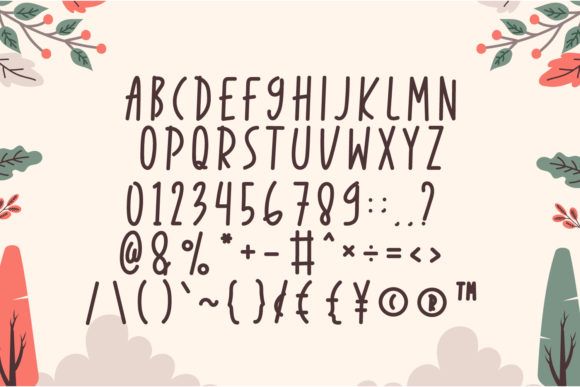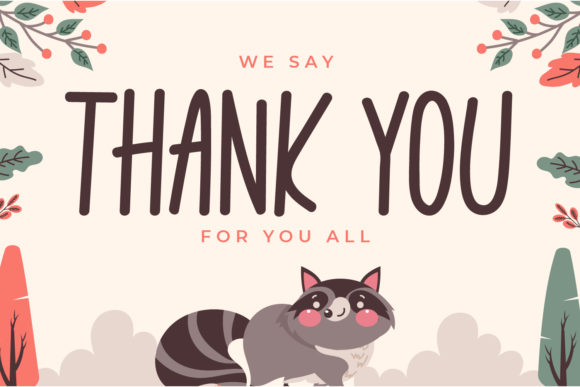
The Ultimate Guide to Animal Day Font: A Fun and Versatile Display Font
Have you ever been working on a design project, and suddenly, you’re stuck on finding the perfect font? I recall a recent experience where I was designing a children’s book, and I needed a font that was both fun and easy to read. That’s when I stumbled upon the Animal Day font, and it instantly became my go-to choice. In this article, we’ll dive into the world of Animal Day font, exploring its features, uses, and everything in between.
A Personal Review of Animal Day Font
So, what makes Animal Day font so special? Let’s take a closer look.
What I Love About Animal Day Font
- ✨ Casual charm: Animal Day font has a down-to-earth feel that makes it perfect for a wide range of design projects.
- ✅ Easy to read: The font’s clear and simple design ensures that your text is always legible, even at smaller sizes.
- 🌈 Versatile: From quotes and shirt designs to websites and branding, Animal Day font can be used in various creative projects.
While Animal Day font is an excellent choice, there are a few things to keep in mind:
- 🤔 Limited formal use: Due to its casual nature, Animal Day font might not be the best fit for formal or professional projects.
- ⚠️ Glyph limitations: As with any font, there might be limitations to the number of glyphs or special characters available.
The Backstory Behind Animal Day Font
While the origins of Animal Day font are unclear, it’s likely that the designer aimed to create a fun and approachable font for creative projects. The font’s casual charm and versatility make it an excellent choice for designers and crafters.
Q: What type of projects is Animal Day font best suited for?
A: Animal Day font is perfect for creative projects, such as children’s designs, quotes, shirt designs, websites, branding, and more.